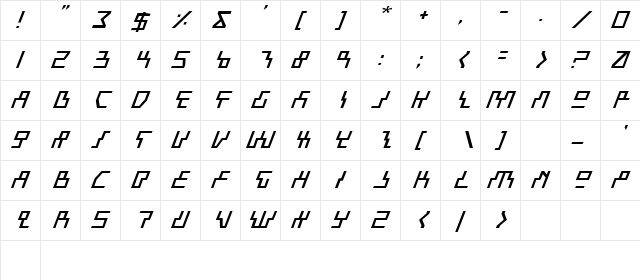
Beam Rider Italic Italic
Design Context for Beam Rider Italic Typeface
Beam Rider Italic is a composed and adaptable typeface that performs quietly and consistently across a wide range of design contexts. Its italic angle brings a sense of urgency and motion to the letterforms.
Pro Tip: Use Beam Rider Italic for emphasis, pull quotes, and subheadings where its slanted energy can add rhythm to the layout.